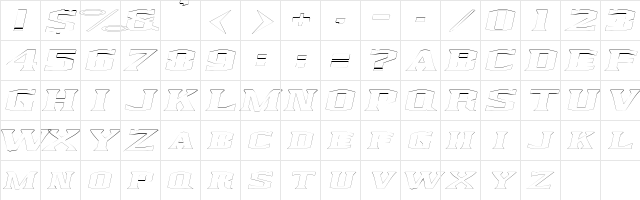
KingfreshCondensedOutline Italic
Design Context for KingfreshCondensedOutline Typeface
KingfreshCondensedOutline is built around its visual character rather than neutral utility — its distinctive forms are designed to make an impression at display sizes. Its italic angle brings a sense of urgency and motion to the letterforms.
Font Pairing: Pair with a clean neutral sans-serif for body copy to let KingfreshCondensedOutline's character lead without overwhelming the composition.
Pro Tip: Use KingfreshCondensedOutline exclusively at display sizes — it was designed to be seen, not read at length. Let a neutral companion handle body copy.